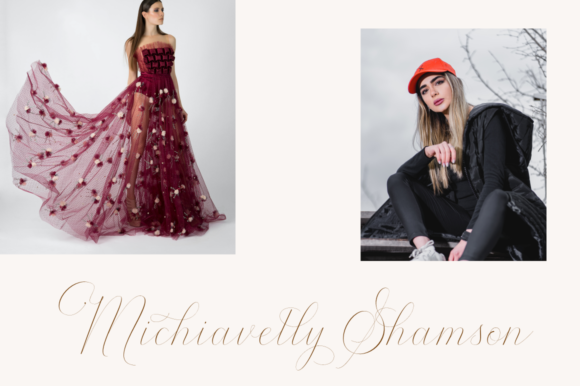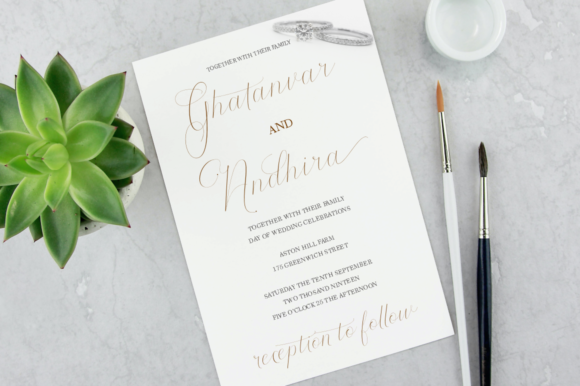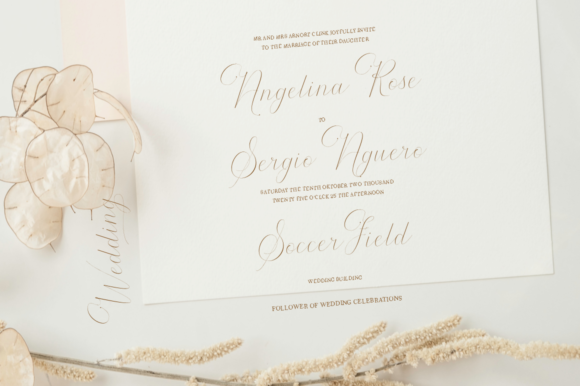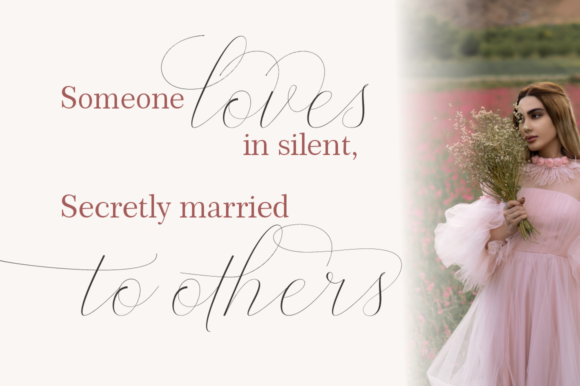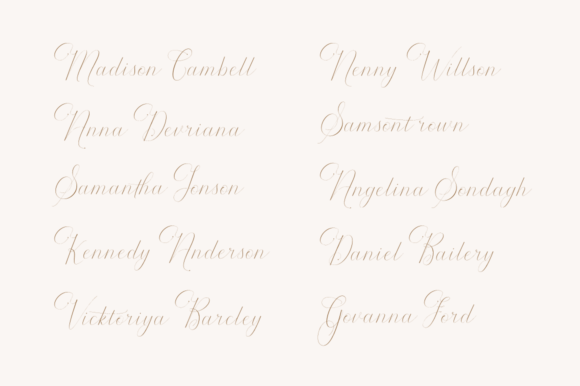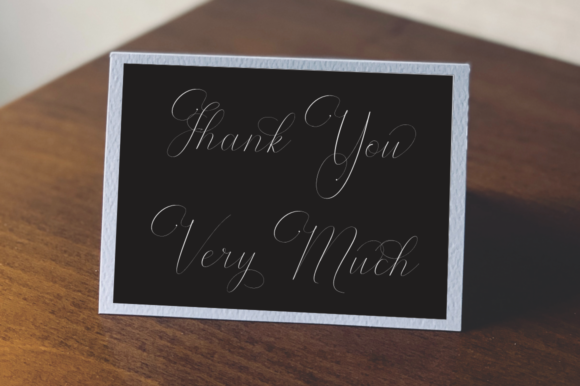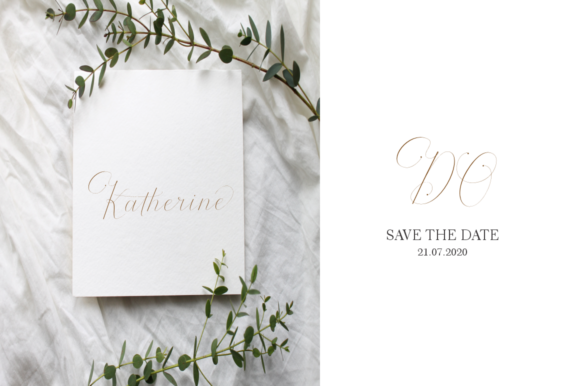
The Bastian Script Font
About The Bastian Script Font
The Bastian Script is a subtle and gentle script font created for the theme of romance. Bastian Script adheres to a simple and elegant style, besides that it has a stunning vibe in the form of a unique Roman design.